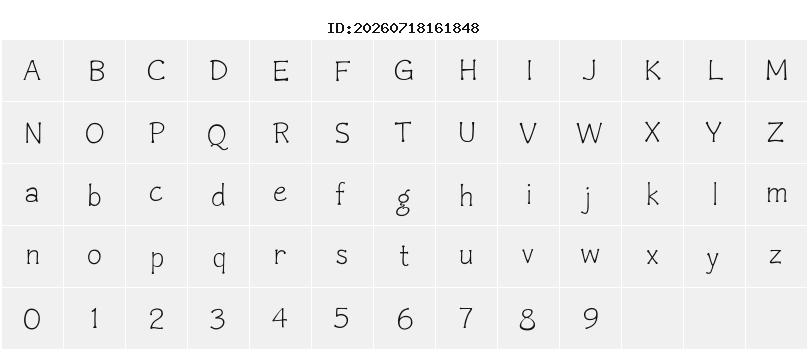
• Font Name: Czaristane Demo
• Full Font Name: Czaristane Demo
• PostScript Name: CzaristaneDemo
About Czaristane Demo.ttf
Czaristane Demo.ttf is a modern, elegant sans-serif font designed for ultimate readability and visual harmony. Perfect for branding, headlines, web design, and print materials.